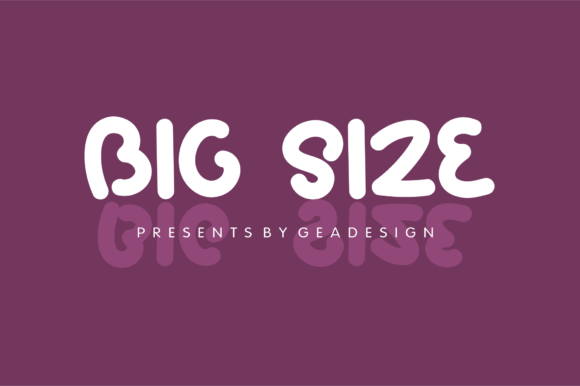
Have you been looking for a font to add a playful spark to your designs? Look no further than "Big Size". Created by the expert designers at Geadesign, this sans-serif font is a guaranteed crowd-pleaser. "Big Size" is delightfully bold, chunky, and funky, giving off a slightly comic-book-ish vibe that will add a touch of lightheartedness to any creation.
Whether you're designing a poster, website, or greeting card, "Big Size" is sure to make your text pop with its unique and eye-catching style. Its uppercase letters and playful demeanor are a perfect match for adding a sprinkle of fun to any design. The font's charmingly chubby and bold appearance will capture attention and leave a lasting impression, making it an ideal choice for headlines, logos, and social media posts.
Beyond its aesthetic appeal, "Big Size" also boasts exceptional readability. Its clear and distinct character shapes ensure that your text will be easy to read, even from a distance or on smaller screens. This makes it a versatile font, suitable for both print and digital projects.
If you're ready to add some extra personality to your designs, "Big Size" is the perfect choice for you. Its bold and playful nature will transform your words into captivating visual statements that will engage your audience and make your designs stand out from the crowd. Download "Big Size" today and let the fun begin!